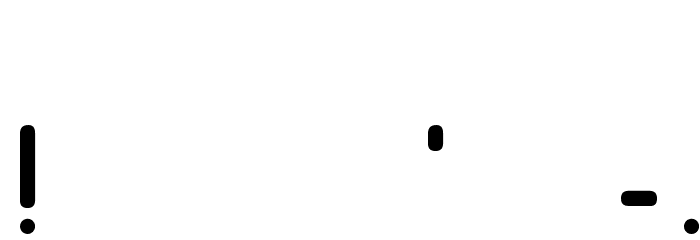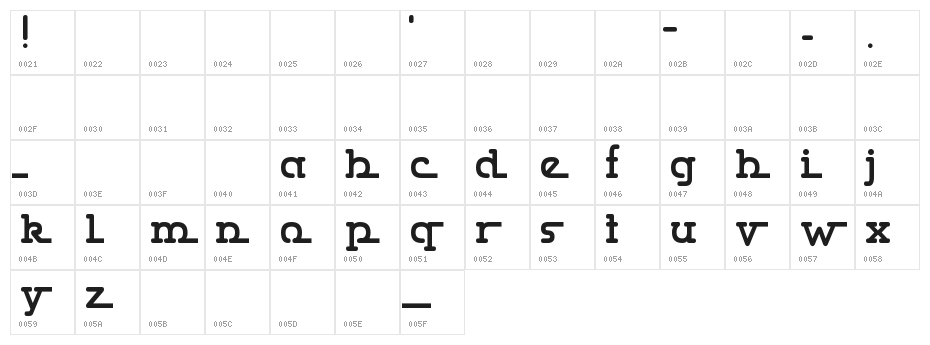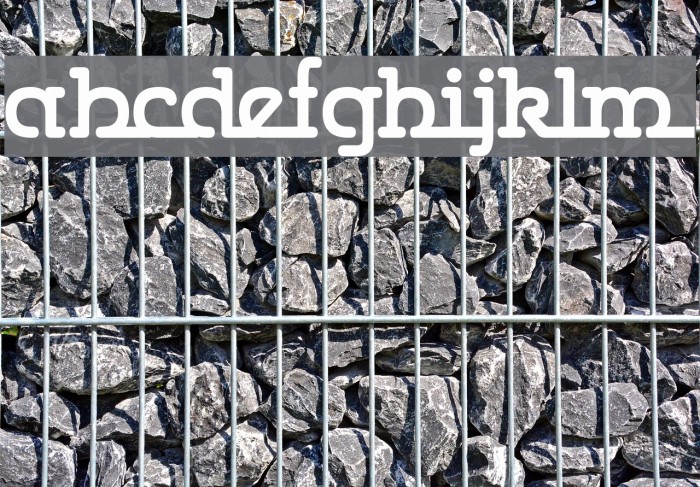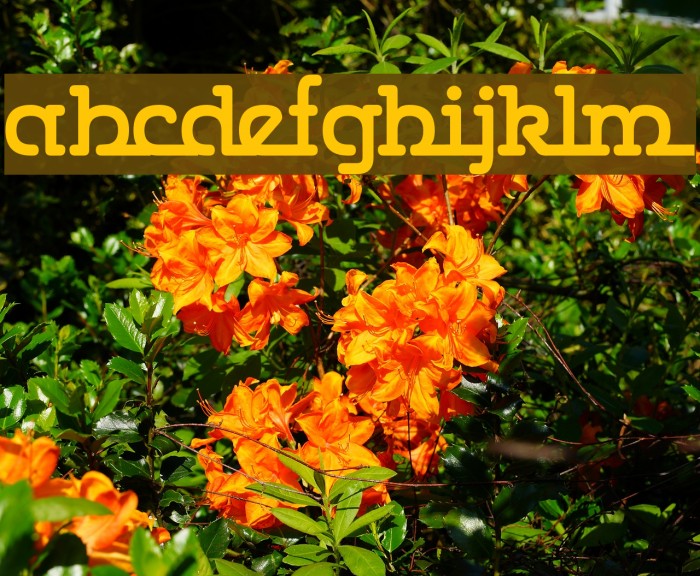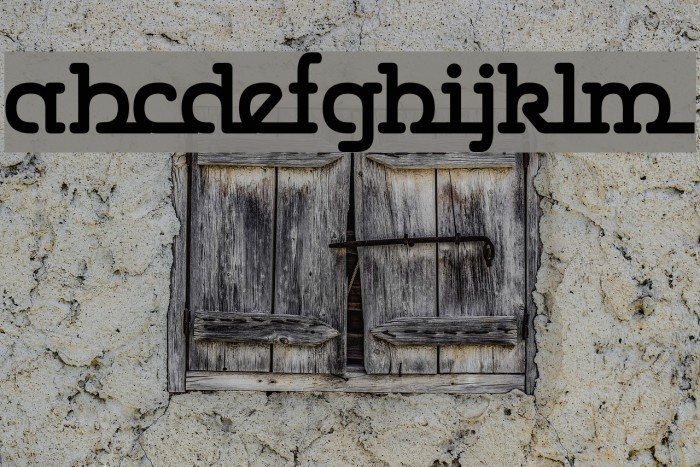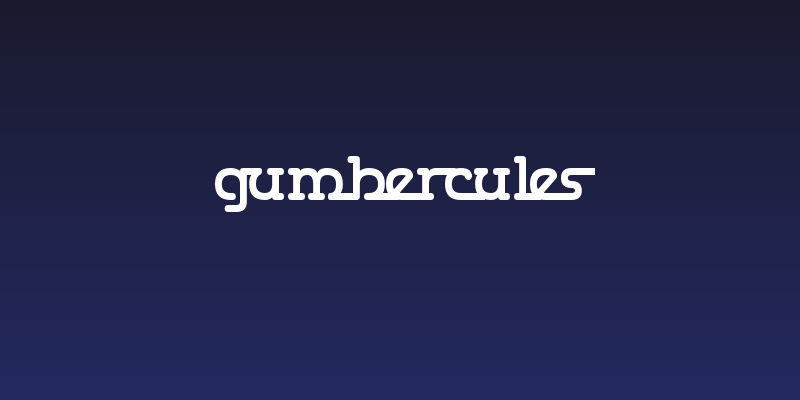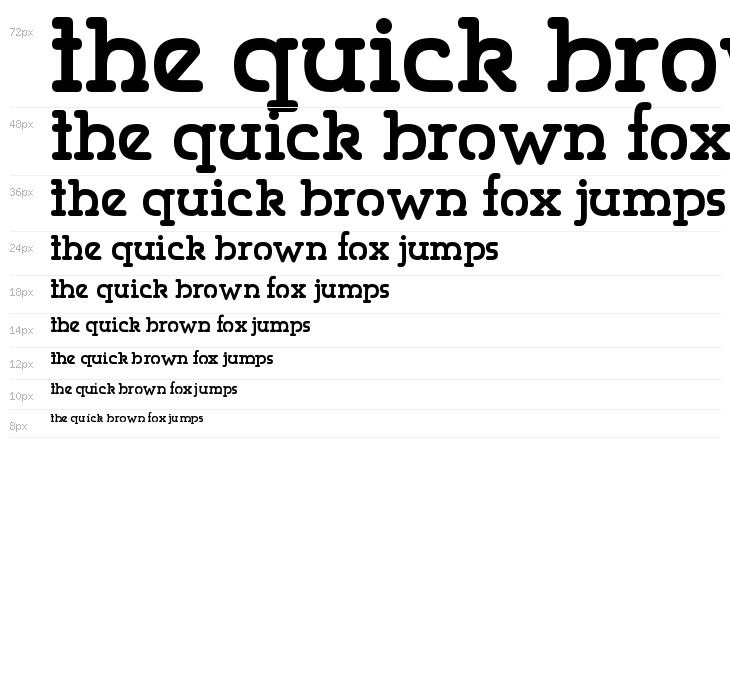
Gumbercules Font
Gumbercules Description
This font features a playful and rounded design, characterized by its bold and thick strokes. The letters are evenly spaced with a consistent width, giving it a cohesive appearance. The rounded edges and smooth curves create a friendly and approachable feel, making it suitable for informal and creative projects. The font lacks sharp angles, emphasizing its soft and welcoming nature. Its distinct style is both modern and slightly retro, appealing to a wide range of audiences. The uniformity in stroke thickness provides a balanced look, while the unique character shapes add a touch of whimsy.
| Overall Style | Playful, Modern, Retro |
| Proposed Projects | Ideal for children's books, playful branding, creative posters, and informal digital content. |